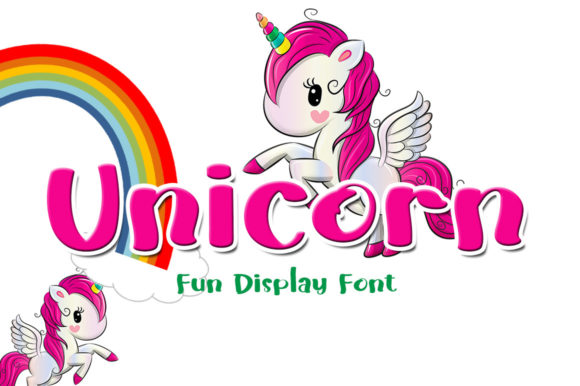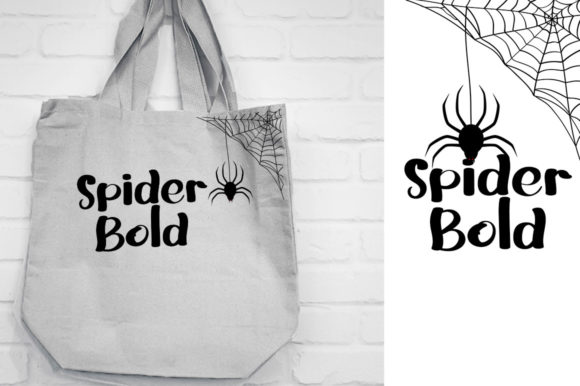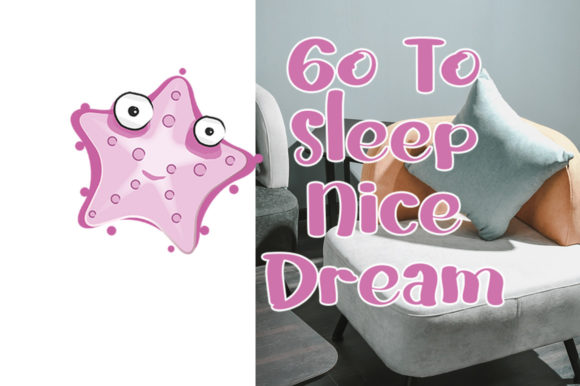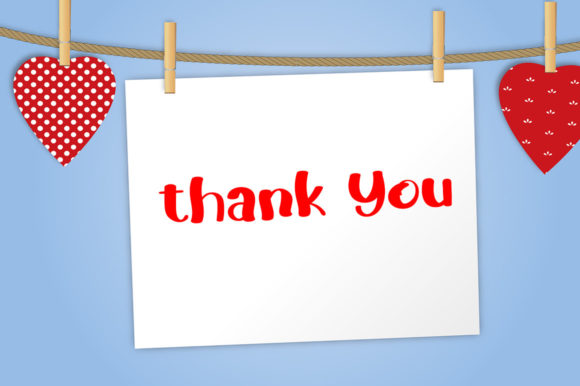
Unicorn Font
“Unicorn” is a charming and sweet handwritten font that brings a delightful and whimsical touch to your projects. With its fresh, clean, and quirky aesthetic, this font is versatile and well-suited for a wide range of creative endeavors. Whether applied in formal or informal contexts, “Unicorn” is sure to enhance the visual appeal of your designs.
The charm of “Unicorn” lies in its playful and sweet handwritten style, which adds a unique character to any project. The font’s fresh and clean appearance contributes to a modern and contemporary vibe, while its quirky elements inject a sense of creativity and whimsy.
The versatility of “Unicorn” is evident in its ability to shine in both formal and informal settings. In formal projects such as corporate presentations, business cards, or professional documents, the font’s clean and fresh look ensures a polished and sophisticated presentation. In informal contexts like invitations, greeting cards, social media posts, or personal projects, the quirky handwriting imparts a friendly and approachable charm.
For a variety of projects, “Unicorn” proves to be a standout choice. Whether you’re working on branding materials, posters, websites, or any other creative endeavor, this font brings a fresh and lively vibe to the design. Its handwritten style adds a touch of personality, making it appealing across different industries and visual themes.
The clean and fresh appearance of “Unicorn” contributes to its readability and overall aesthetic appeal. This makes the font suitable for various design mediums, ensuring that it seamlessly integrates into both print and digital projects. “Unicorn” maintains clarity, allowing your message to be effectively communicated in a visually engaging manner.
In summary, “Unicorn” is more than just a font; it’s a versatile tool that adds a charming and sweet touch to your designs. Its adaptability makes it suitable for both formal and informal projects, while its fresh, clean, and quirky qualities contribute to a modern and appealing aesthetic. Whether you’re creating branding materials, posters, or social media content, let “Unicorn” be the whimsical and versatile font that brings a touch of magic to your creative projects.